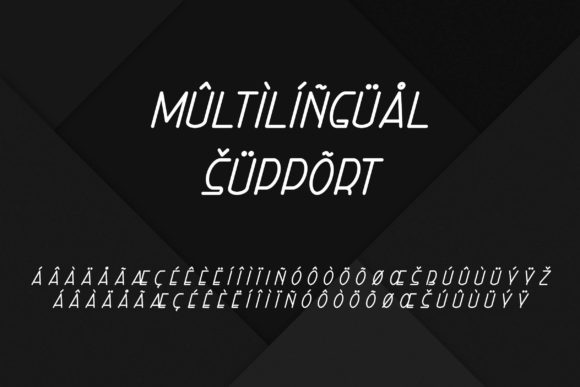
Introducing Right Hand Bold Italic Font: The Ultimate Modern Monoline Font
In the world of typography, fonts play a crucial role in conveying messages, expressing emotions, and creating visual identities. Among the numerous fonts available, Right Hand Bold Italic Font stands out as a modern monoline font that has gained significant attention in recent times. In this article, we’ll delve into the features, benefits, and uses of Right Hand Bold Italic Font, exploring its potential to elevate your designs and take your brand to the next level.
What is Right Hand Bold Italic Font?
Right Hand is a modern monoline font that boasts a single line style, making it a versatile and stylish addition to any design project. Its sleek and minimalist aesthetic allows it to adapt seamlessly to various applications, from crafting and photography to watermark, social media posts, advertisements, logos, branding, invitations, product designs, labels, stationery, product packaging, and special events.
The font’s monoline style is characterized by its clean and fluid lines, which create a sense of elegance and sophistication. The bold and italic variations of Right Hand add an extra layer of expressiveness, enabling designers to convey different tones and emotions through their text.
Key Features of Right Hand Bold Italic Font
- Modern Monoline Style: Right Hand features a sleek and contemporary single line style that adds a touch of sophistication to any design.
- Bold and Italic Variations: The font comes in bold and italic versions, allowing designers to experiment with different tones and emotions.
- High Versatility: Right Hand is suitable for a wide range of applications, from digital media to print materials.
- Easy to Read: Despite its bold and modern style, Right Hand remains highly legible, making it perfect for body text and headlines.
Creative Ways to Use Right Hand Bold Italic Font
Right Hand Bold Italic Font is an incredibly versatile font that can be used in various design projects. Here are some ideas to get you started:
- Crafting and DIY Projects: Add a personal touch to your crafting and DIY projects with Right Hand’s elegant and modern style.
- Photography and Watermark: Use Right Hand as a watermark or to add text overlays to your photos, giving them a professional and stylish look.
- Social Media Posts: Elevate your social media presence with Right Hand’s bold and attention-grabbing style.
- Advertisements and Marketing Materials: Make a lasting impression with Right Hand’s modern and sleek aesthetic, perfect for advertisements, brochures, and flyers.
- Logos and Branding: Create a strong brand identity with Right Hand’s unique and memorable style.
- Invitations and Event Materials: Make your invitations and event materials stand out with Right Hand’s elegant and sophisticated style.
- Product Designs and Packaging: Add a touch of modernity to your product designs and packaging with Right Hand’s clean and minimalist aesthetic.
Tips and Tricks for Using Right Hand Bold Italic Font
To get the most out of Right Hand Bold Italic Font, here are some tips and tricks to keep in mind:
- Experiment with Font Sizes: Right Hand looks great in various font sizes, from large headlines to smaller body text.
- Play with Color: Try pairing Right Hand with different colors to create visual interest and contrast.
- Mix and Match Font Styles: Combine Right Hand with other fonts to create a unique and visually appealing typography.
- Pay Attention to Kerning: Make sure to adjust the kerning to ensure that Right Hand looks its best.
| Font Name | Right Hand Bold Italic Font |
In conclusion, Right Hand Bold Italic Font is a versatile and stylish modern monoline font that can elevate your designs and take your brand to the next level. Its clean and fluid lines, bold and italic variations, and high legibility make it perfect for a wide range of applications. Whether you’re a designer, crafty DIY enthusiast, or social media influencer, Right Hand is an excellent addition to your typography arsenal.